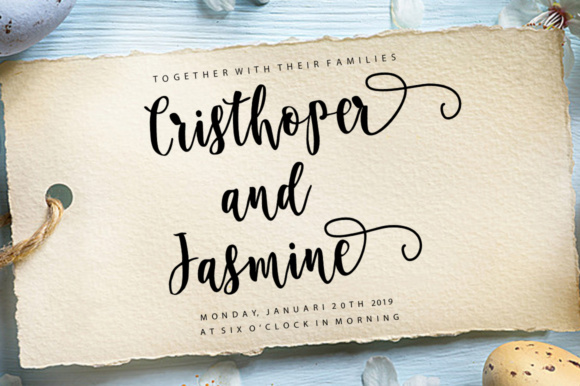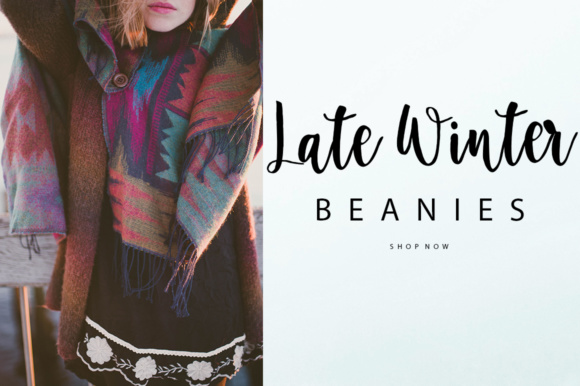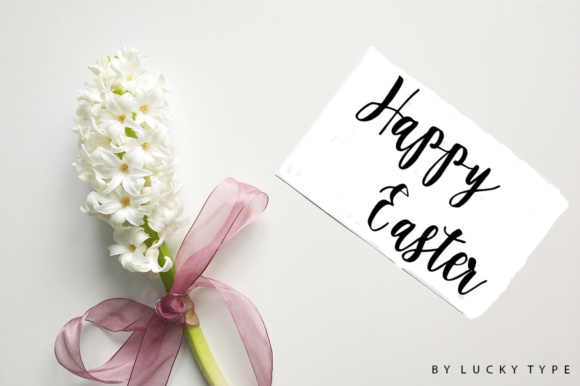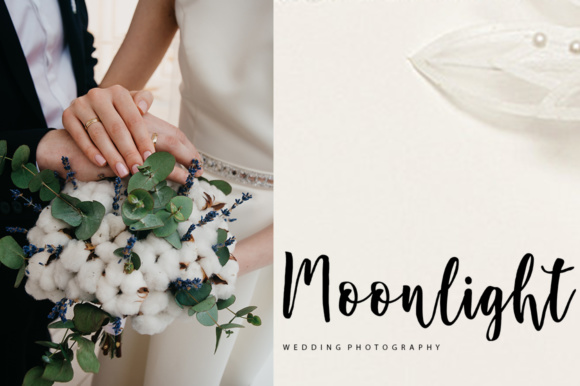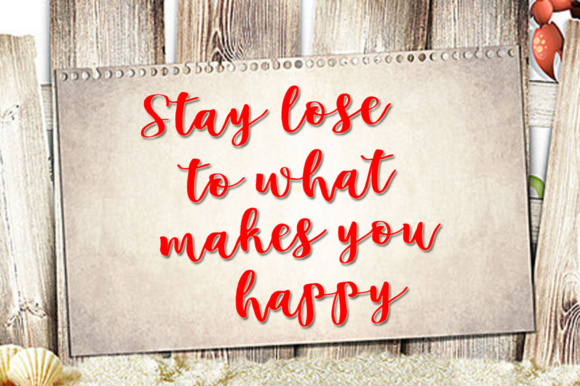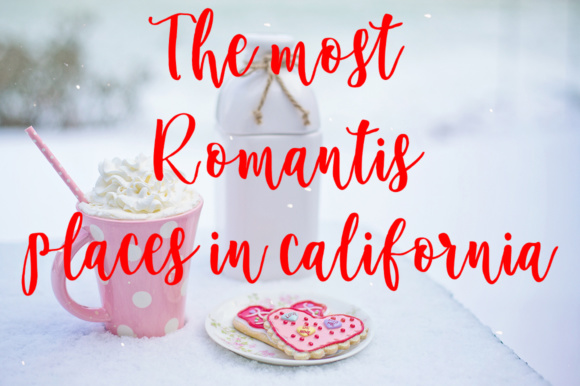
Duttane Script Font: Elevate Your Designs with a Trendy and Feminine Touch
In the world of typography, script fonts have always been a popular choice for designers looking to add a touch of elegance and sophistication to their creations. One such font that has been making waves in the design community is the Duttane Script Font. This modern script font boasts an irregular baseline, giving it a unique and trendy vibe that’s perfect for feminine designs. In this article, we’ll dive deeper into the features and benefits of the Duttane Script Font and explore how it can elevate your designs.
What is Duttane Script Font?
Duttane Script Font is a new modern script font designed with an irregular baseline, which sets it apart from traditional script fonts. Its unique design makes it perfect for designers looking for a fresh and trendy font to add to their collection. The font’s irregular baseline gives it a handwritten feel, making it ideal for creating inviting and engaging designs.
Key Features of Duttane Script Font
• Trendy and Feminine: Duttane Script Font is designed with a feminine touch, making it perfect for designs that require a touch of elegance and sophistication.
• Irregular Baseline: The font’s irregular baseline gives it a unique and handwritten feel, making it stand out from traditional script fonts.
• Versatile: Duttane Script Font is versatile and can be used for a variety of design projects, including invitations, branding, packaging, and more.
• Easy to Read: Despite its irregular baseline, Duttane Script Font is easy to read, making it perfect for body text and headings.
Benefits of Using Duttane Script Font
So, why should you choose Duttane Script Font for your designs? Here are just a few benefits of using this beautiful font:
• Adds a Touch of Elegance: Duttane Script Font adds a touch of elegance and sophistication to any design, making it perfect for high-end branding and luxury products.
• Creates a Personal Touch: The font’s handwritten feel creates a personal touch, making it ideal for designs that require a human touch.
• Perfect for Invitations: Duttane Script Font is perfect for invitations, including wedding invitations, birthday invitations, and more.
• Great for Social Media Graphics: The font’s trendy and feminine vibe makes it perfect for social media graphics, including Instagram posts and Facebook graphics.
How to Use Duttane Script Font
Using Duttane Script Font is easy. Here are a few tips to get you started:
• Pair it with a Sans-Serif Font: Pair Duttane Script Font with a sans-serif font for a beautiful contrast.
• Use it for Headings: Use Duttane Script Font for headings and titles to add a touch of elegance.
• Experiment with Colors: Experiment with different colors to find the perfect combination for your design.
In conclusion, Duttane Script Font is a beautiful modern script font that’s perfect for designers looking to add a touch of elegance and sophistication to their creations. Its irregular baseline and handwritten feel make it a unique and trendy font that’s perfect for feminine designs. With its versatility and ease of use, Duttane Script Font is a must-have for any designer looking to elevate their designs.
Whether you’re designing invitations, branding materials, or social media graphics, Duttane Script Font is a great choice. So, why not give it a try and see how it can elevate your designs?